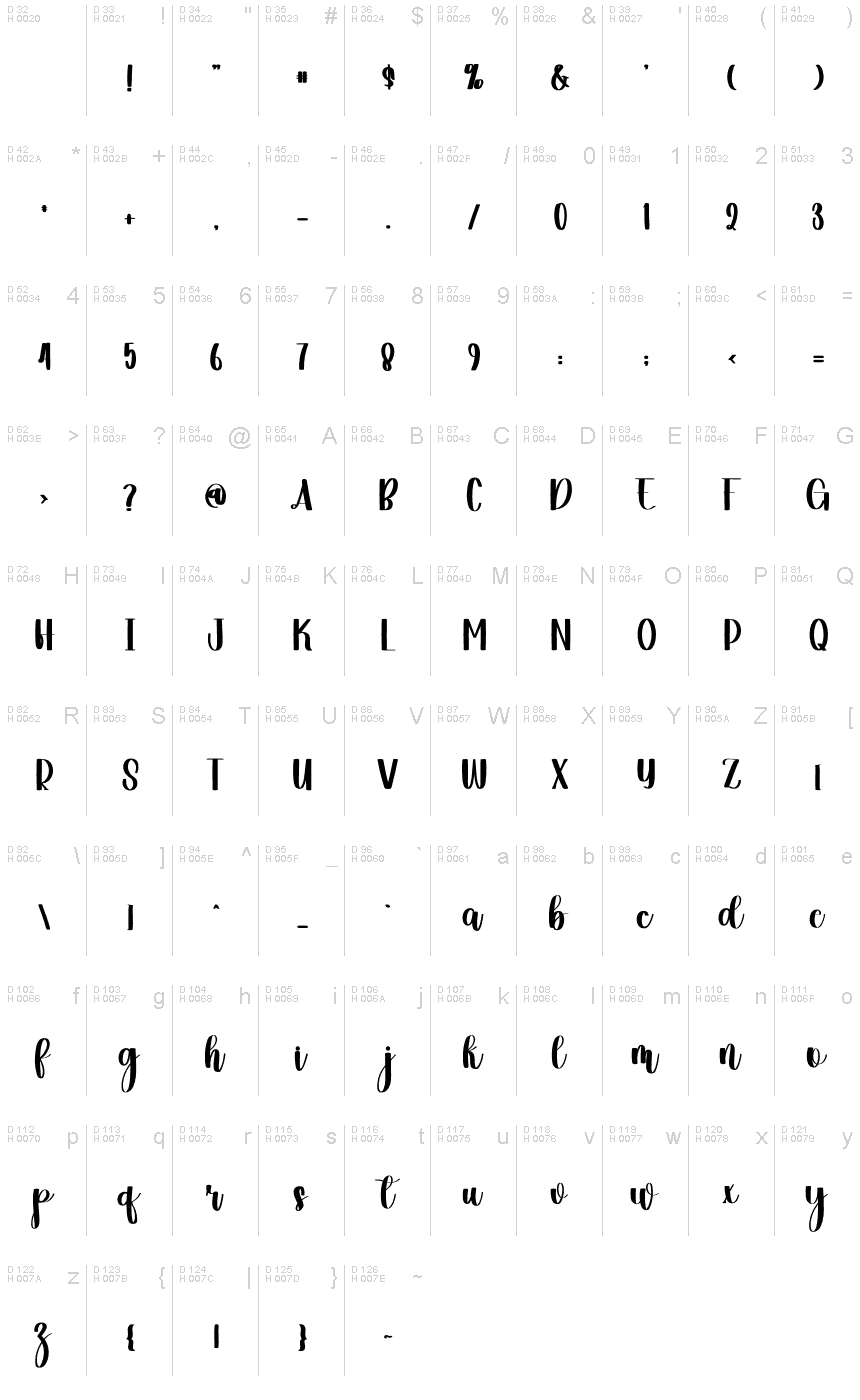
Hearts Handmade
Hearts Handmade, a captivating handwritten font by FreshtypeINK, adds a touch of warmth and authenticity to any project. Its semi-bold weight enhances each stroke, creating an eye-catching appeal. Perfect for greeting cards, wedding invitations, and crafty DIY projects, this font brings a personal and heartfelt feel to your designs. Whether you're looking to create whimsical logos or charming social media graphics, Hearts Handmade is the ideal choice for expressing creativity and spreading love. Let your imagination run wild with this delightful typeface!